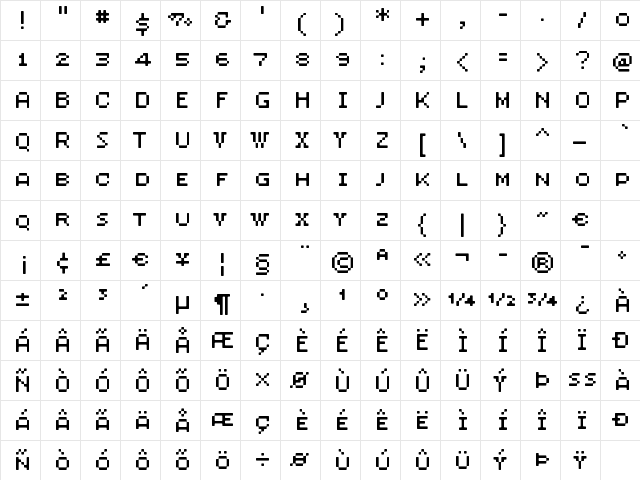
LRPlusNine WideSC
WideSC ·  Zuzana Licko ·
DesignerZuzana Licko
Design Context for LRPlusNine Typeface
LRPlusNine is a composed and adaptable typeface that performs quietly and consistently across a wide range of design contexts.